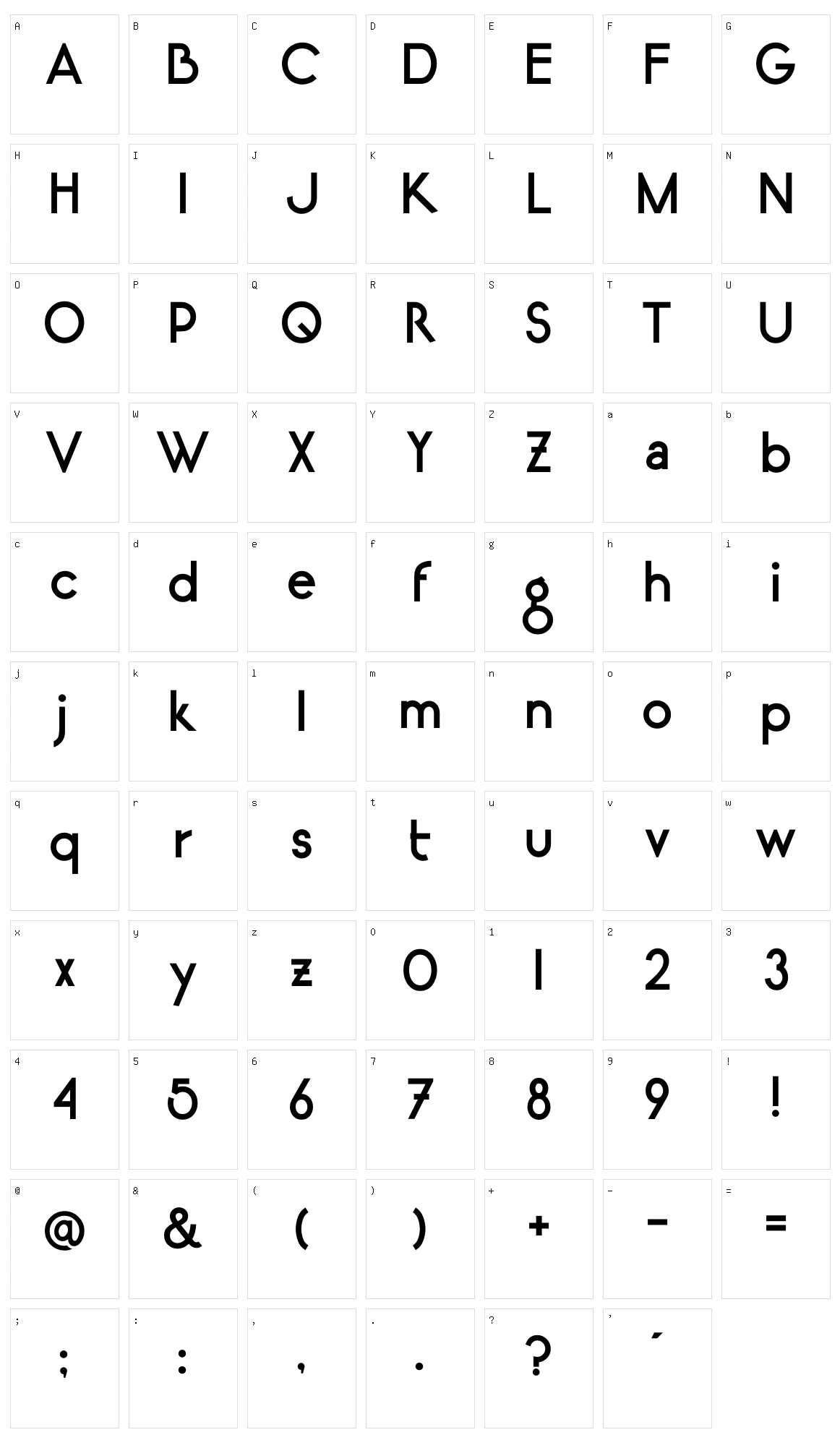
The free font Lugos is carefully designed by APlaπi, showcasing a thoughtful balance of creativity and usability and falls under the Sans serif font style. When you download the ZIP file, it contains only 123.41 KB of font files, making it lightweight and quick to download. Please review the license details below to understand permitted usage and distribution rights. If license information is not available, we recommend using this font for personal projects only or contacting the author directly for commercial usage permissions.